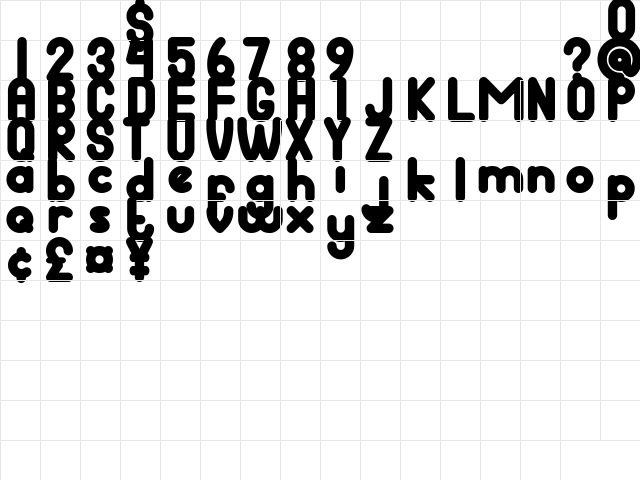
dingo the singing dog DEMO Regular
Design Context for dingo the singing dog DEMO Typeface
dingo the singing dog DEMO is a composed and adaptable typeface that performs quietly and consistently across a wide range of design contexts.